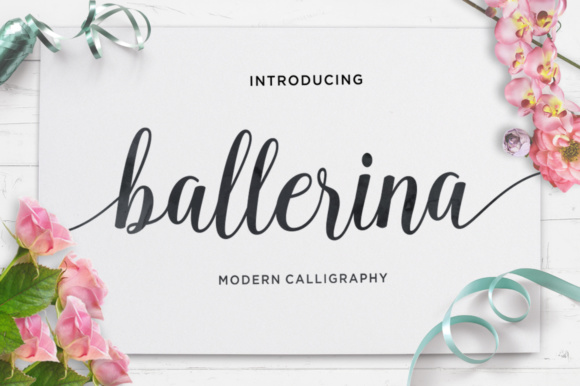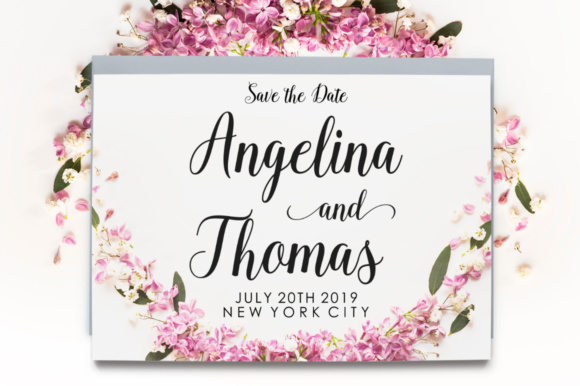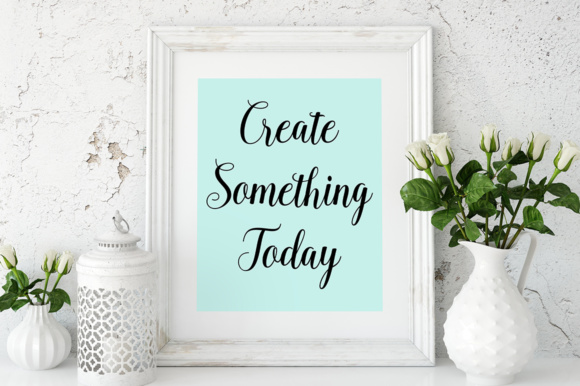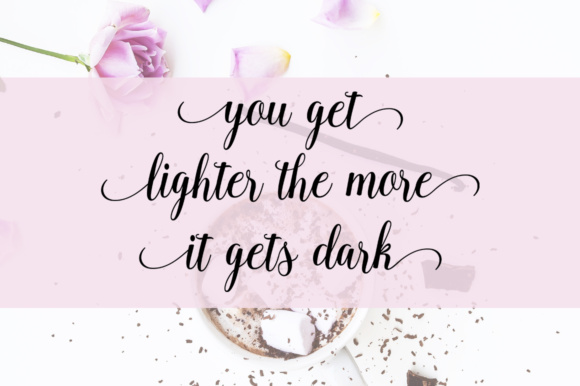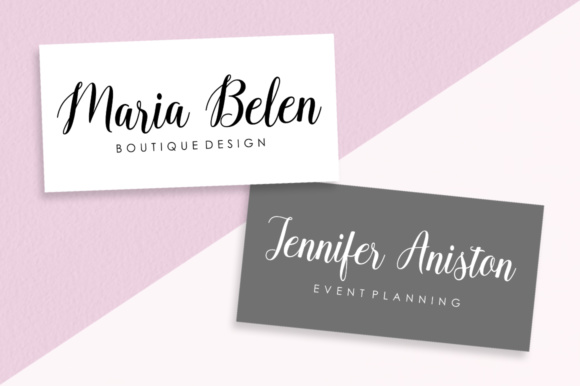
Ballerina Script Font
About Ballerina Script Font
Ballerina Script is a modern calligraphy font which is is casual and pretty with lots of beautiful swashes. Ballerina can be used for various purposes such as logos, product packaging, wedding invitations, branding, headlines, signage, labels, signature, book covers, posters, quotes and more.